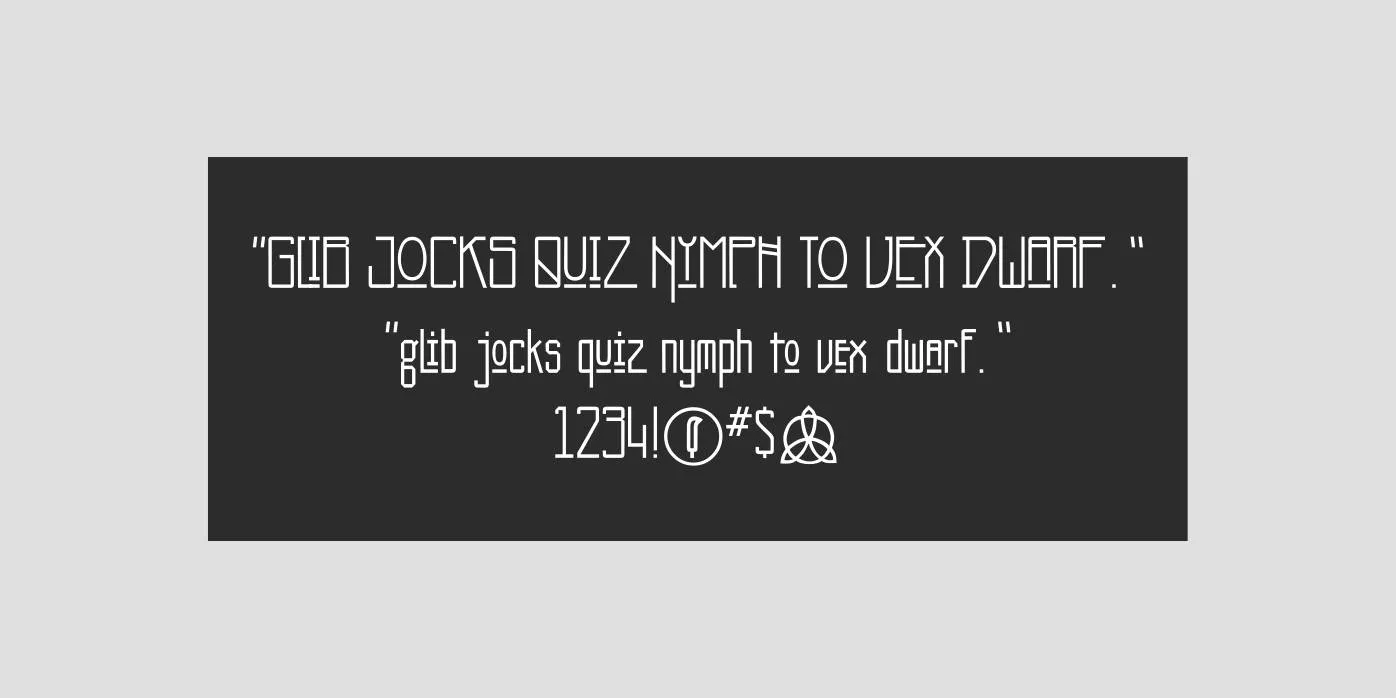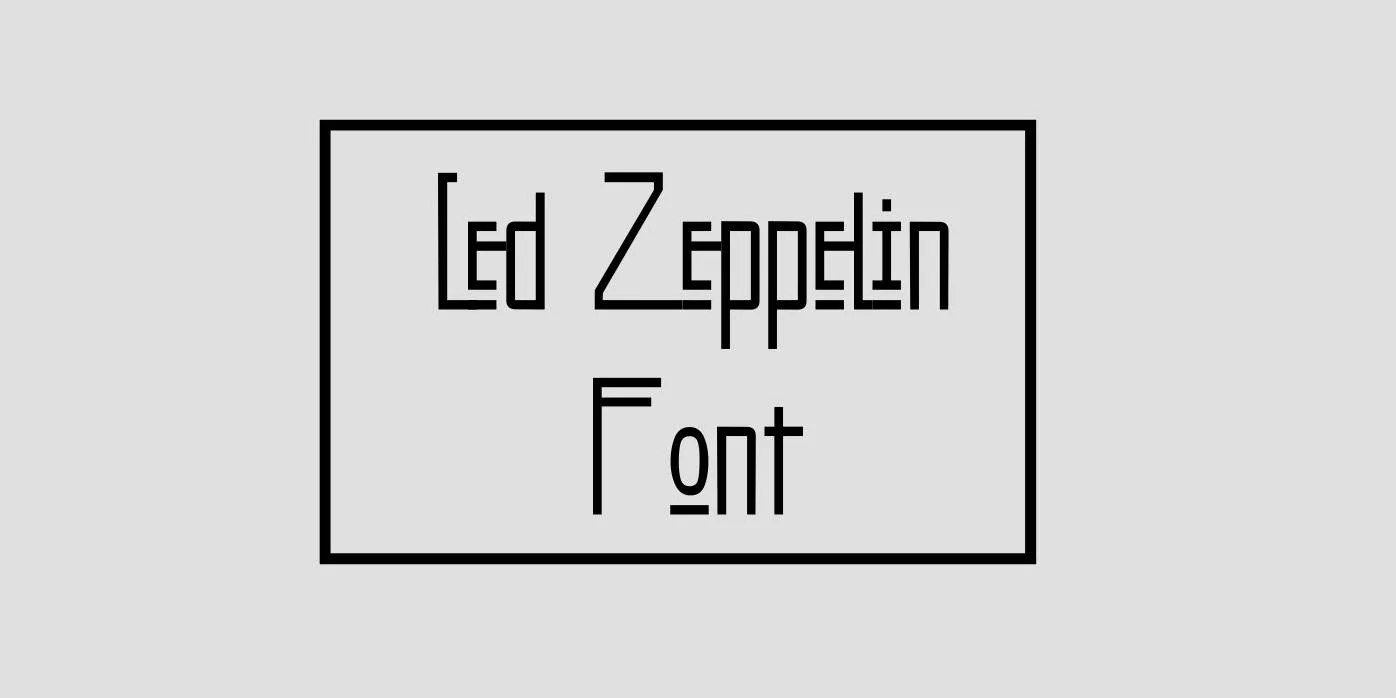
Led Zeppelin Font
Led Zeppelin Font is a fancy font that was developed by Altsys Metamorphosis. This gorgeous font includes various characters and symbols that are not found in other fonts. This awesome Typeface was specifically designed to be used by the rock band Led Zeppelin. The Led Zeppelin Typeface is a very popular Typeface among rock fans.
This font family is also very popular among designers. This classic font has been used by many different designers and artists. This attractive font is a very versatile font. It can be used for many different purposes.